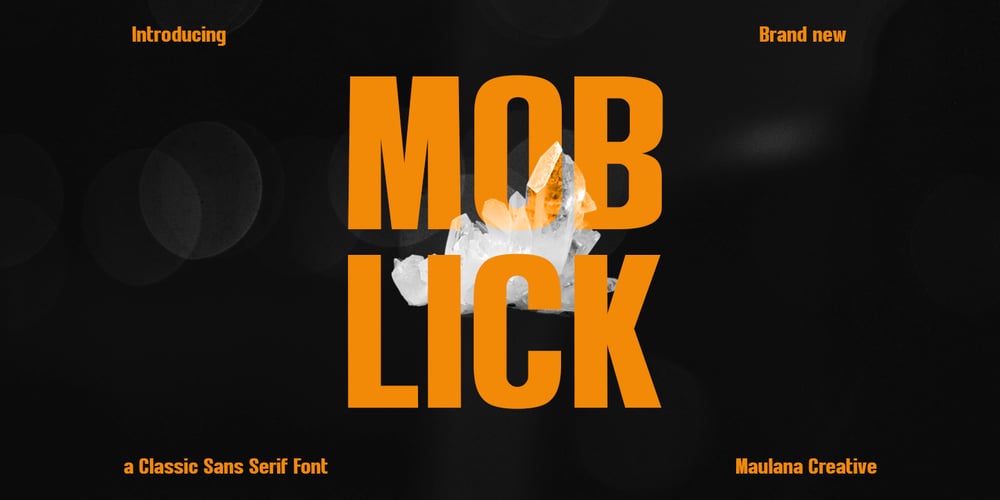
MC Moblick Font Family was designed by Gilang Maulana and published by Maulana Creative. MC Moblick contains 1 styles and family package options. Moblick is a 90’s vibes sans serif font. Bold stroke, fun character with a bit of ligatures and alternates. To give you an extra creative work. Moblick font support multilingual more than 100+ language. This font is good for logo design, Social media, Movie Titles, Books Titles, a short text even a long text letter and good for your secondary text font with script or serif. Make a stunning work with Moblick font. Cheers, Maulana Creative